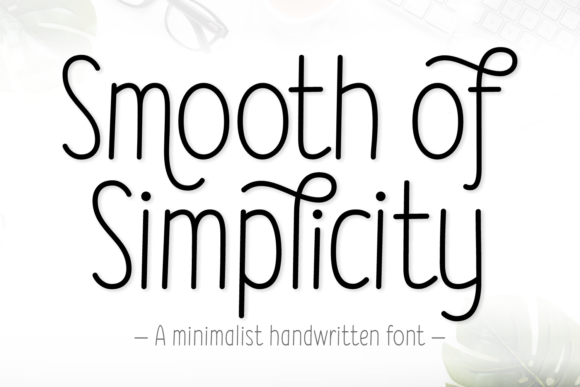
Introducing Smooth of Simplicity Font, a captivating and elegant script font designed by Creative Fabrica Fonts. This minimalist handwritten typeface is the perfect choice for any design project that requires a touch of sophistication and style.
With its smooth and flowing lines, Smooth of Simplicity Font adds a unique and personal touch to your designs. Whether you're creating a logo, designing blog graphics, or crafting stylish quotes, this font will elevate your creations to a whole new level.
Planning a wedding? Look no further! Smooth of Simplicity Font is the ideal choice for wedding stationery, adding a touch of elegance and refinement to your invites, menus, and place cards. Your guests will be captivated by the beauty and grace of this font.
Not only is Smooth of Simplicity Font perfect for print materials like art prints and packaging, but it also shines in the digital world. Use it to create eye-catching social media posts, design stunning magazine layouts, or add a touch of creativity to your website.
Fashionistas and creative brands will fall in love with Smooth of Simplicity Font. Its versatility allows it to seamlessly blend with any creative branding or editorial design, making your brand stand out from the crowd. Let your imagination run wild and watch as this font brings your vision to life.